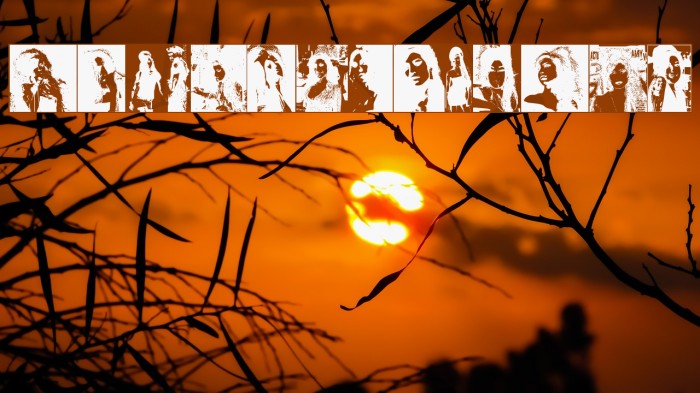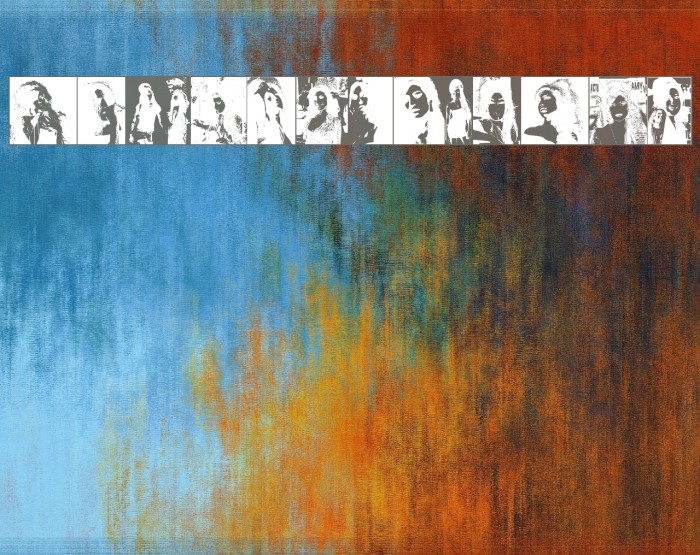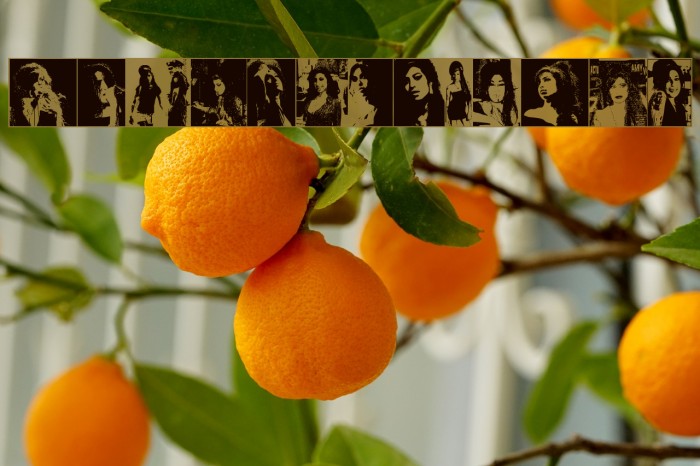
AmyBats3 Font
AmyBats3 Description
A decorative display font composed of high-contrast, black-and-white photographic silhouettes of a woman in various poses, each character is represented by a unique image rather than traditional letterforms.
| Overall Style | Decorative, Artistic, Modern |
| Use Case | Logos, Headlines, Posters, Artistic projects |
| Proposed Projects | Posters, album covers, event flyers, artistic branding, themed invitations. |